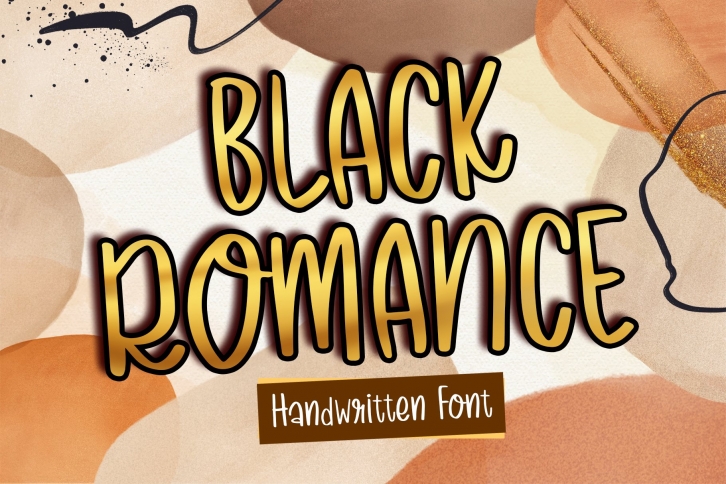
Black Romance is a gorgeous font that was realeased on January 28, 2021. The font can be used in many style contexts and design environments. Perfect for invitations, magazines, websites, logos, and more! It was designed by BoogaLetter and the file size is 14.46 MB. Thanks for checking out this font!